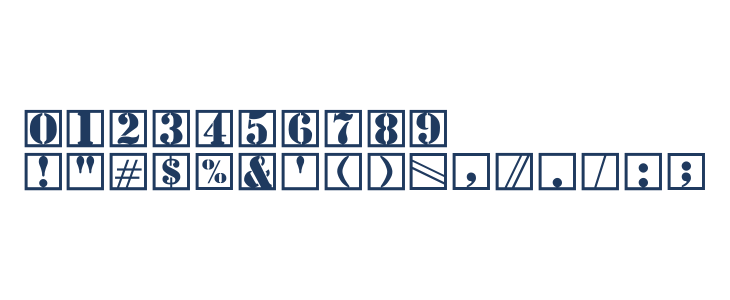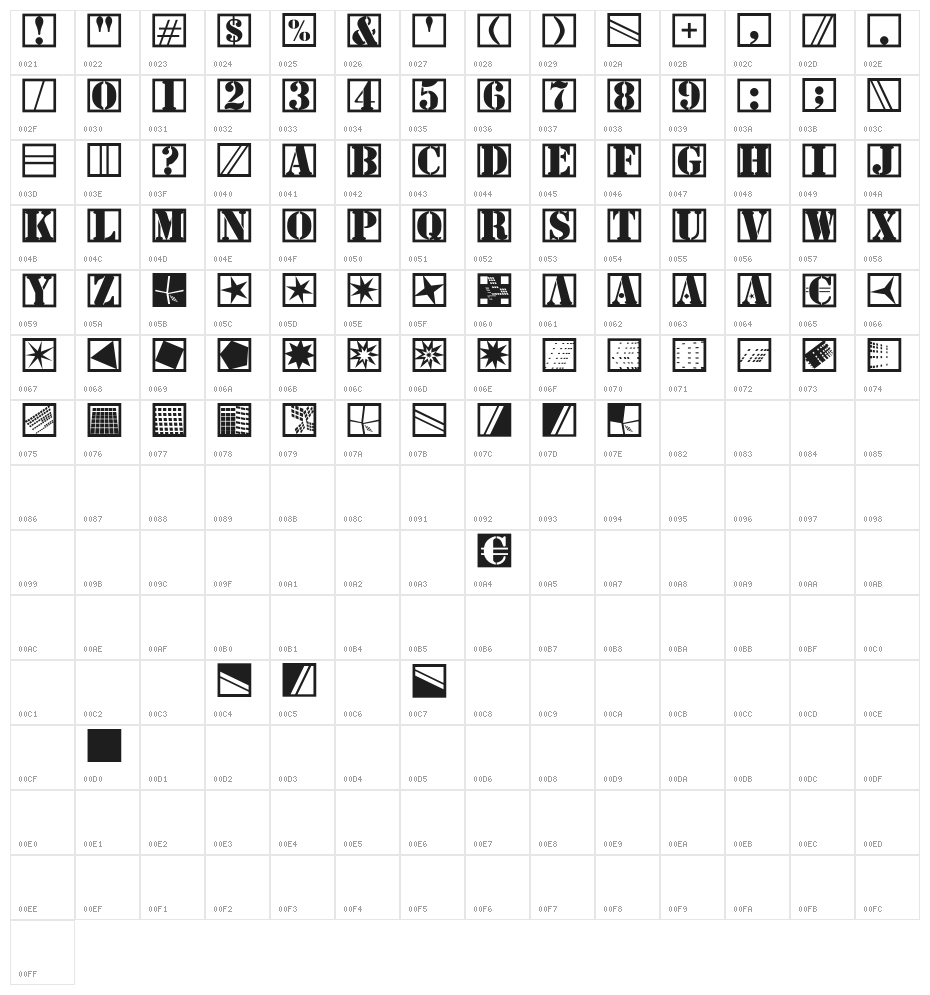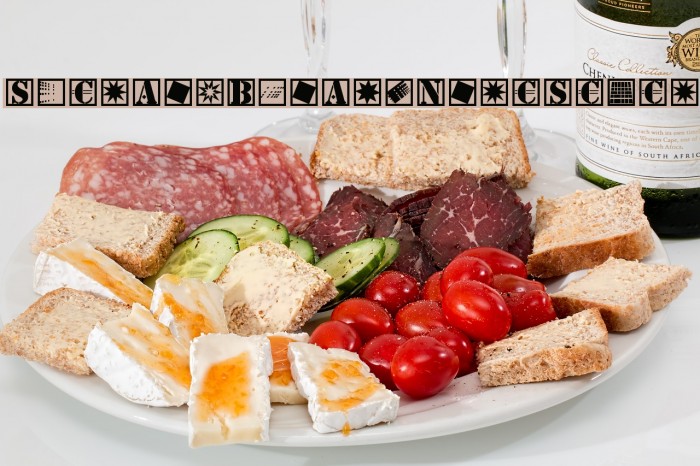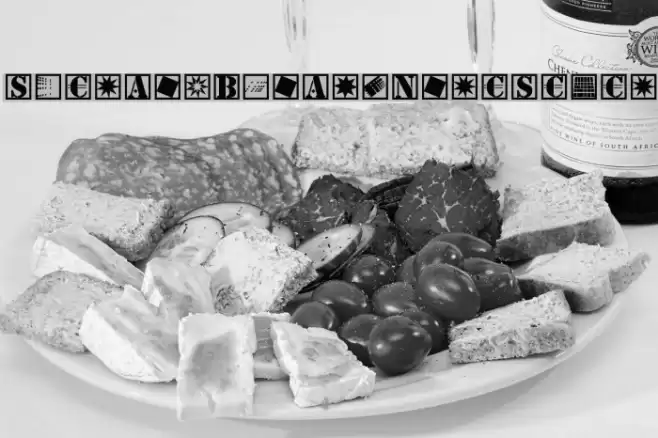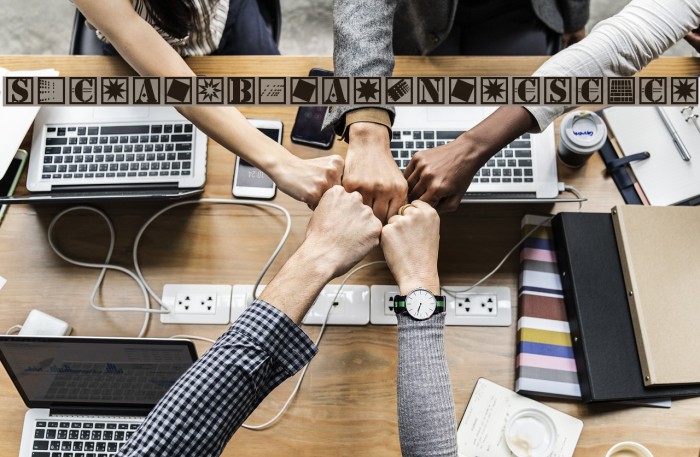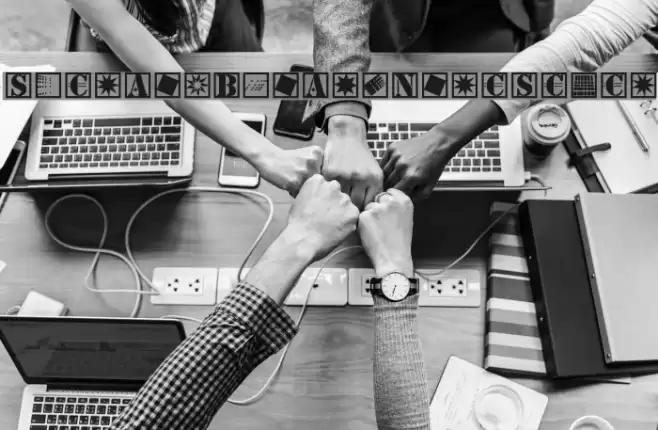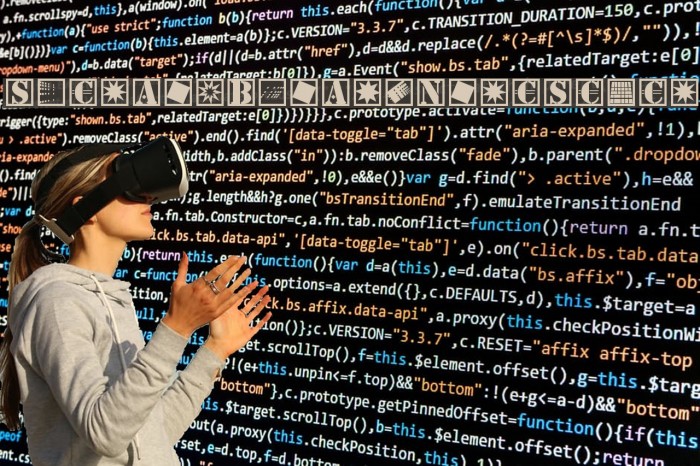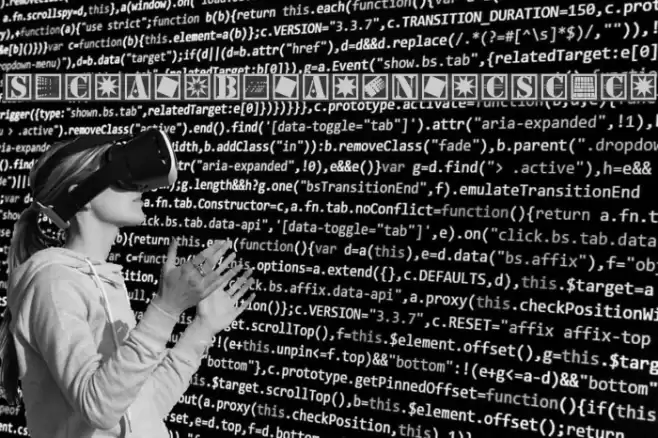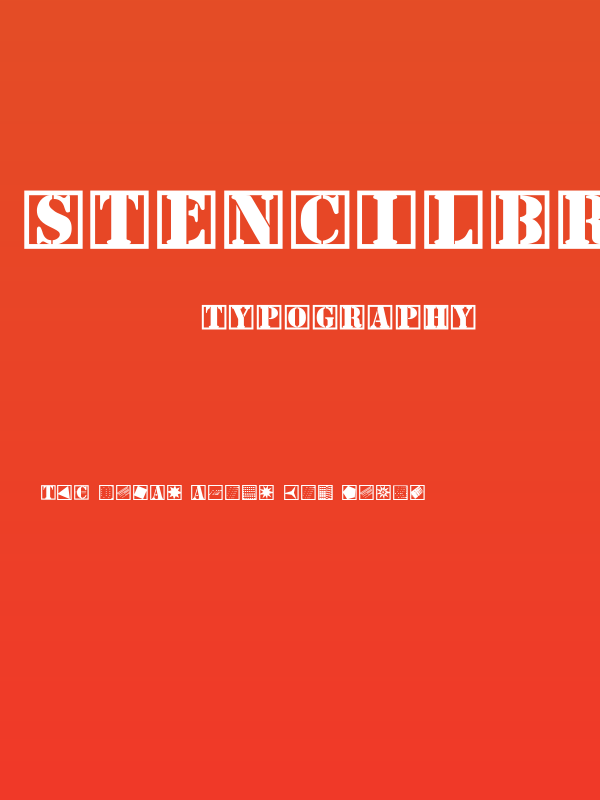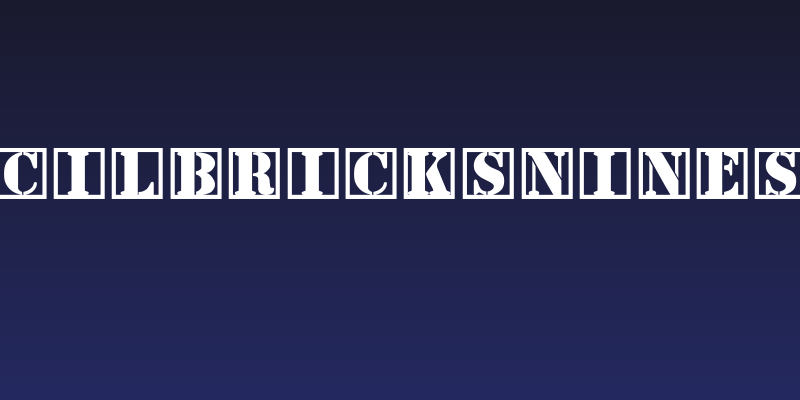
StencilBricksNineSeven Font
StencilBricksNineSeven Description
This font features a bold and striking stencil design, characterized by its geometric and block-like appearance. Each letter and number is enclosed within a square, creating a uniform and structured look. The cut-out sections within the characters add a unique and artistic flair, reminiscent of industrial and urban styles. The font's high contrast between the thick black strokes and the white spaces enhances its visibility and impact. This design is ideal for projects that require a modern and edgy aesthetic.